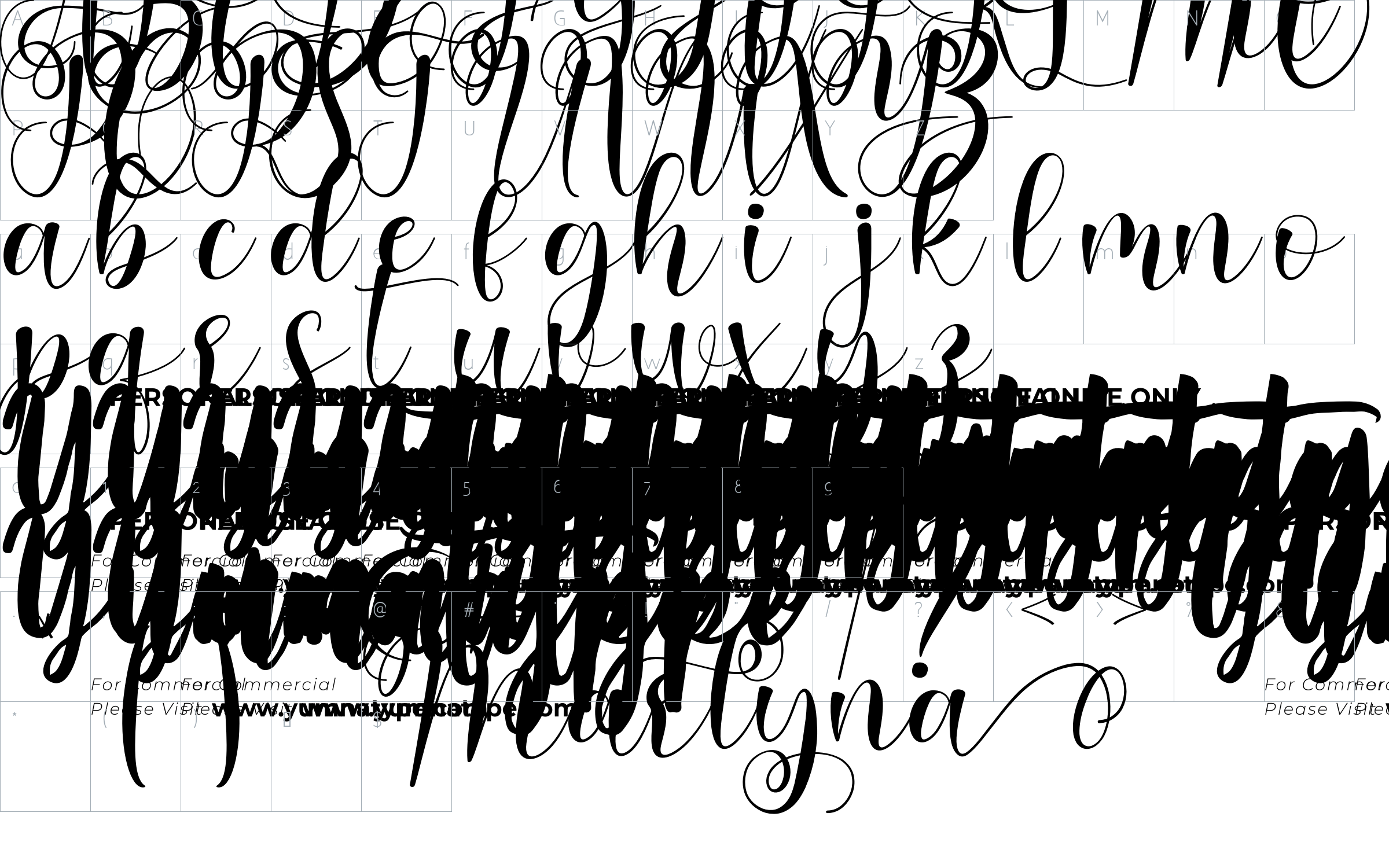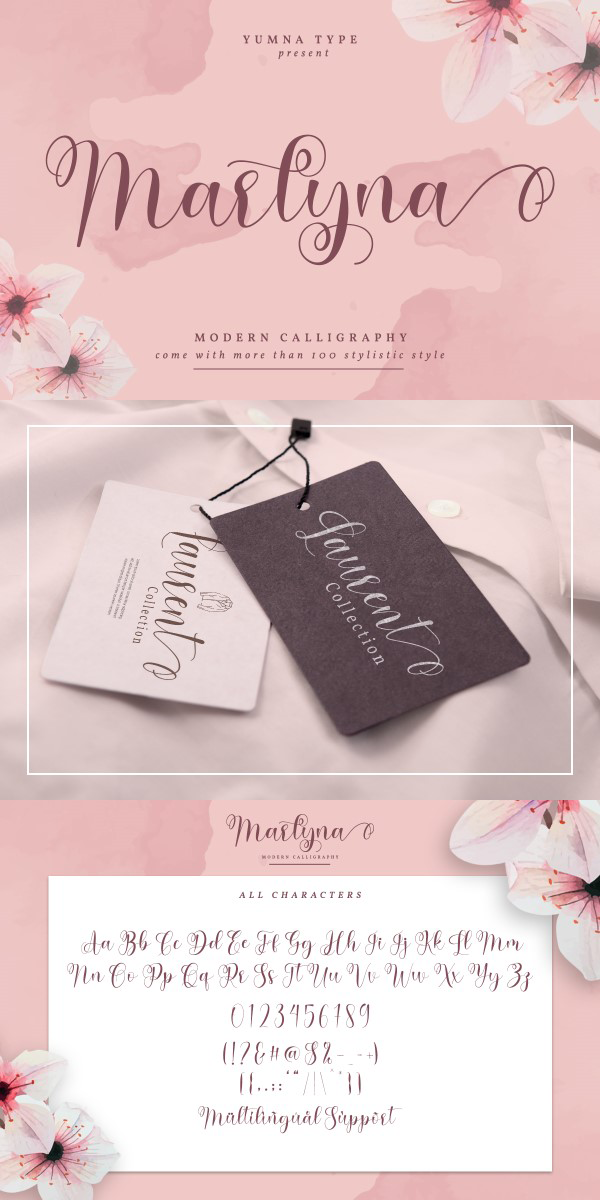
Marlyna Font
About Marlyna
Say hello to Marlyna Script.
Marlyna is a beautiful and modern script.
It brings a beautiful and modern typeface that best used for weddings, branding, logotype, and quotes.
Features :
-Beautiful Alternates + Swashes
-Beginning Swash and Ending Swashes (a-z)